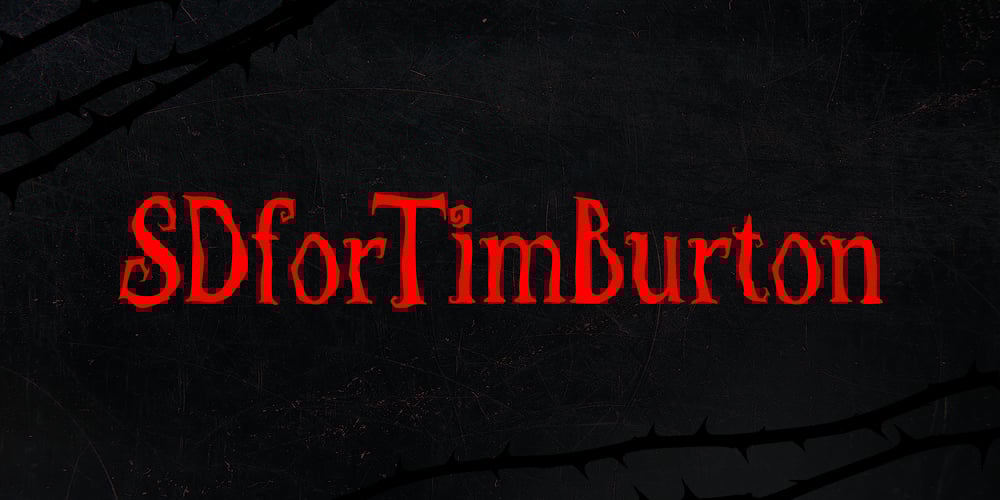
SDFor Tim Burton
SDFor Tim Burton font
SDFor Tim Burton Font Family was designed by Suhee Hwang and published by Sudezine. SDFor Tim Burton contains 1 styles and family package options. This font inspired by the style of Tim Burton’s films. Use logos, quotes, invitations, greeting cards, journals, posters, clothing, and more. This font will make your designs playful and fun!